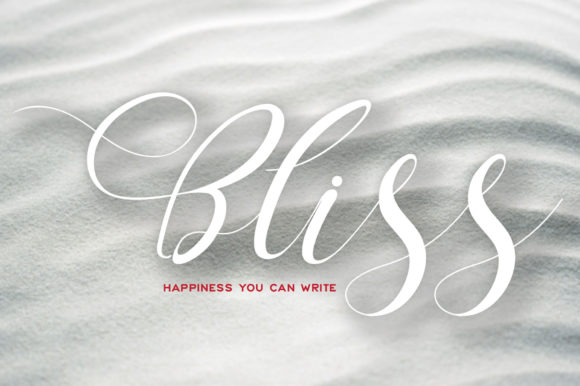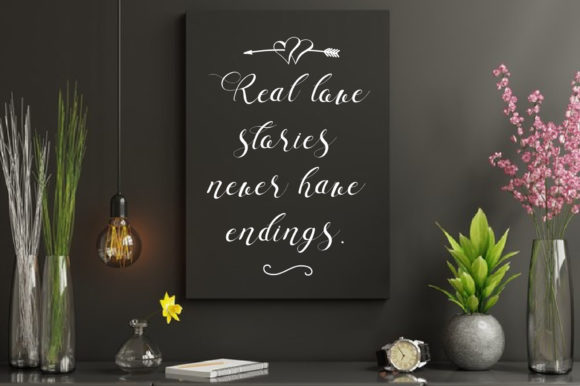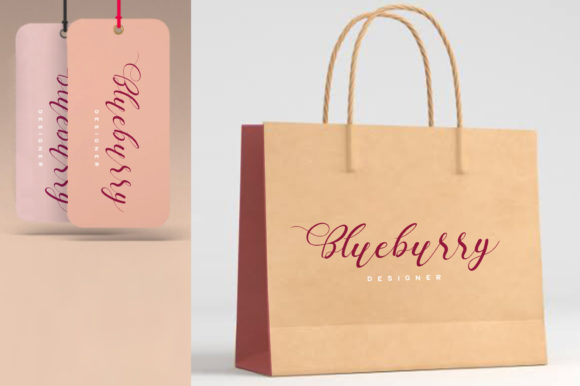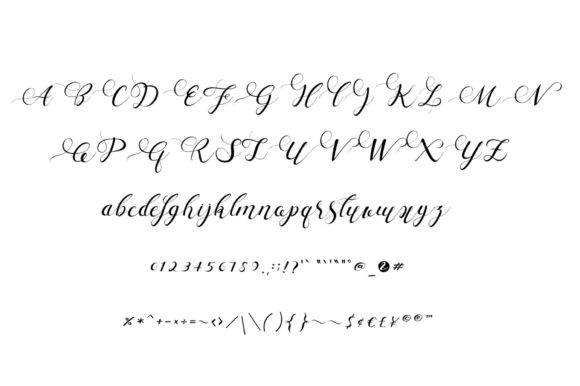
Bliss Font
About Bliss Font
BlissĀ is an enchanting handwritten font. This versatile script font has a wide spectrum of applications ranging from greeting cards to headlines and is guaranteed to add a romantic feel to your next project.